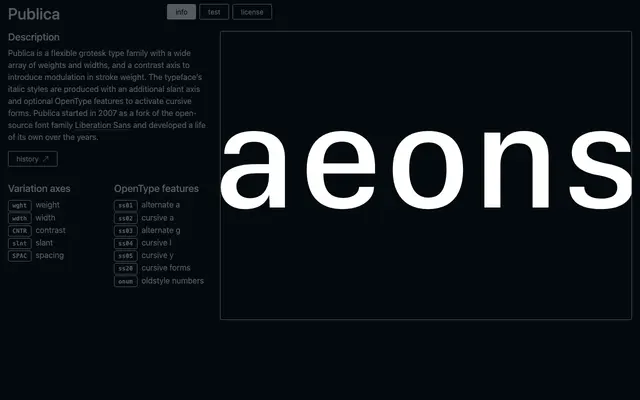
Publica
Hipertipo · 2007
A variable grotesque family originating as a 2007 fork of Liberation Sans, with axes for weight, width, contrast and slant giving extensive stylistic range.
Publica grew from a 2007 fork of the open-source Liberation Sans into an independent grotesque family with five variation axes: weight, width, contrast, slant and spacing. The contrast axis allows modulation of stroke weight within a grotesque structure, while italic-style forms are produced via the slant axis combined with optional OpenType cursive features for alternates including a, g, l and y. The result is a single variable family capable of spanning neutral text settings through to more expressive display usage.
Publica is a grotesque sans-serif with multiple variation axes including weight, width, contrast and slant, developed from a fork of Liberation Sans with its own distinct evolution over time.